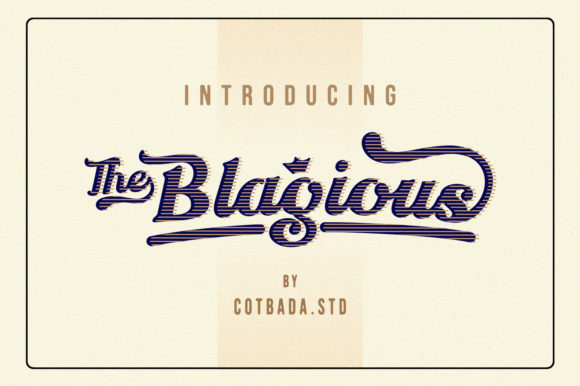
The Blagious Script Font
About The Blagious Script Font
The Blagious is based on a hand lettering project from 2017. It was inspired from the famous retro typography designs in late 60’s until 80’s.
It’s anunique, cool and modern handwritten font. It’s handwritten look makes it perfect for logos, labels, packaging designs, blog headlines, poster, Instagram posts, and much more!